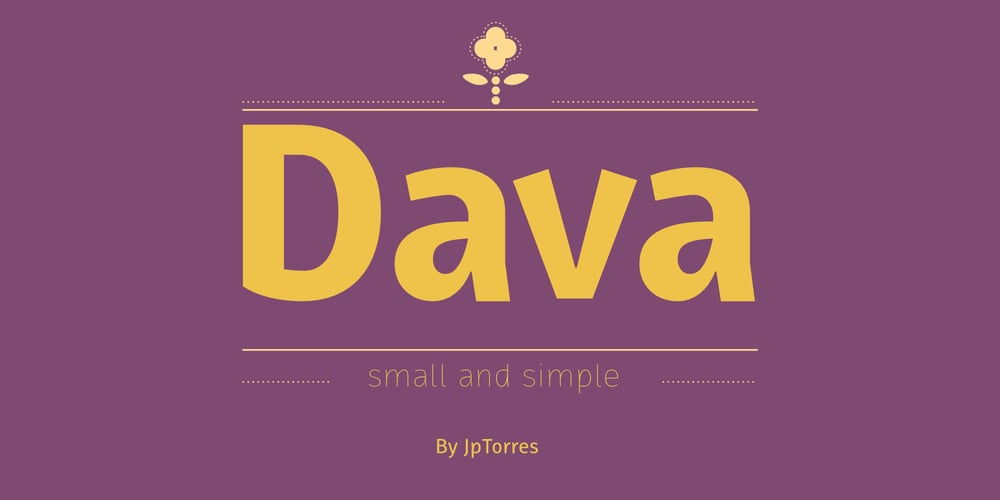
Dava Font Family was designed by Pablo Torres and published by Tiposureño. Dava contains 6 styles and family package options. The Dava typeface is the result of almost two years of self-study. Dava is a screen sans serif font that is small but fun. His family is small and has fine, regular, bold, fine slant, regular slant, and slanted bold weights.